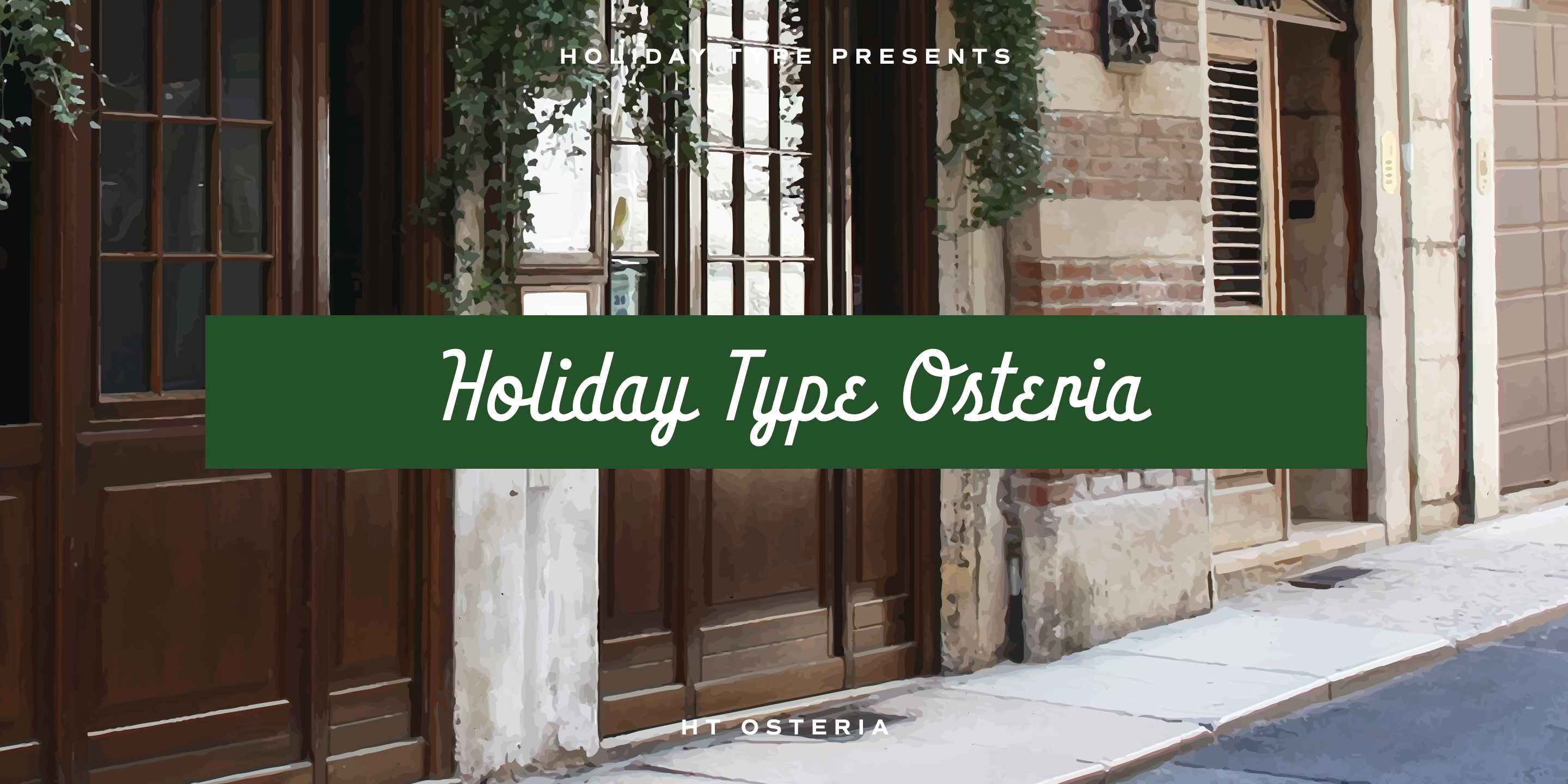
HT Osteria Font is perfect for authentic Italian restaurant branding, rustic trattoria signage, artisanal pizza packaging, Tuscan wine labels, family-owned bistro menus, traditional Italian delicatessen displays, Mediterranean culinary magazines, and warm hospitality identities. This inviting typeface excels in culinary applications, Italian-inspired designs, and any project requiring rustic sophistication that captures the essence of traditional Italian dining and authentic Mediterranean hospitality through warm culinary elegance.
What makes HT Osteria Font exciting is its remarkable ability to embody the warmth and authenticity of traditional Italian osteria culture through lovingly crafted letterforms that carry the essence of family recipes and generations of culinary tradition. The font features warmly designed characters with rustic curves and hospitable proportions that evoke feelings of home-cooked comfort and authentic Italian hospitality, making it ideal for brands seeking to establish connections with food lovers and communicate through genuine culinary visual language. Its hospitable presence ensures immediate recognition of Italian authenticity and culinary warmth.
HT Osteria Font family includes multiple weights and styles: Regular, Bold, Light, Medium, Italic variations, and rustic alternates with culinary embellishments and traditional decorative elements. Each family member maintains the distinctive hospitable character while offering comprehensive design options for culinary campaigns, from warm inviting text to appetizing headlines that establish culinary authority and Italian credibility through authentically rustic typography.
Whether you're designing Italian culinary brands or creating authentic Mediterranean campaigns, HT Osteria Font Free Download provides the perfect typography solution for culinary branding needs. This font transforms ordinary text into warm culinary invitations that communicate Italian tradition and hospitable authenticity. Italian restaurants and artisanal food brands choose this typeface for its ability to convey culinary warmth through lovingly crafted letterforms that welcome diners through designs with rustic charm and celebrate the beautiful tradition of Italian hospitality.